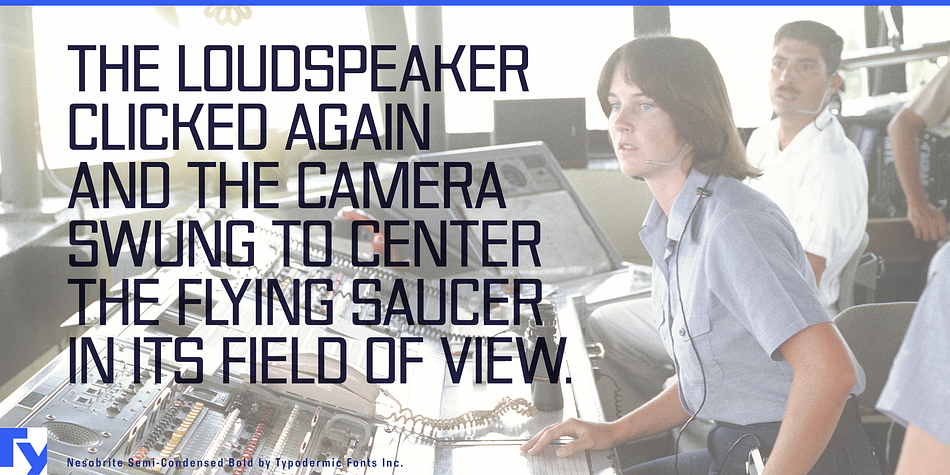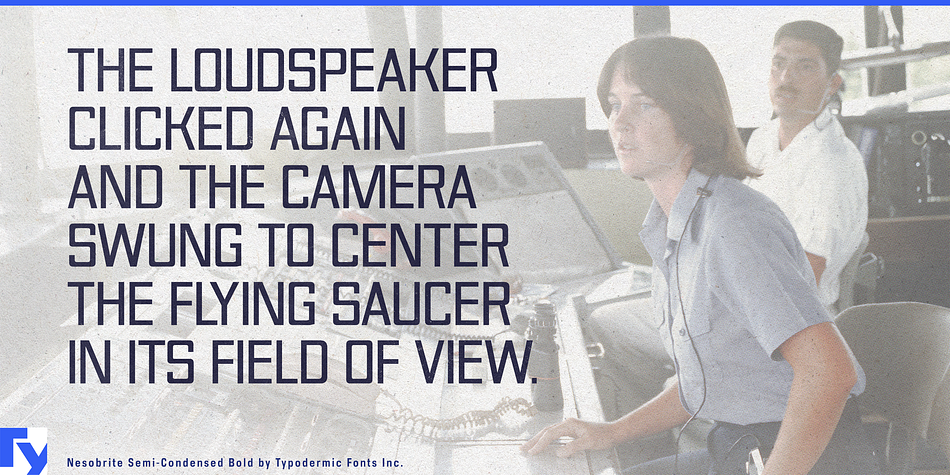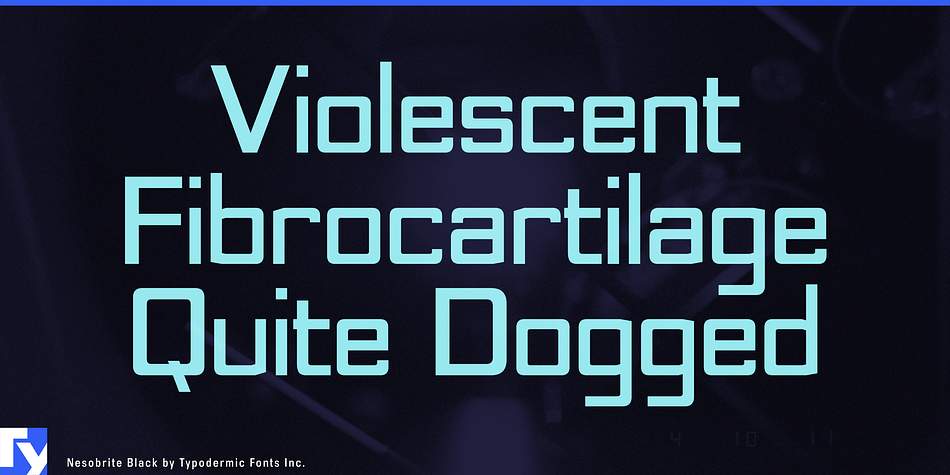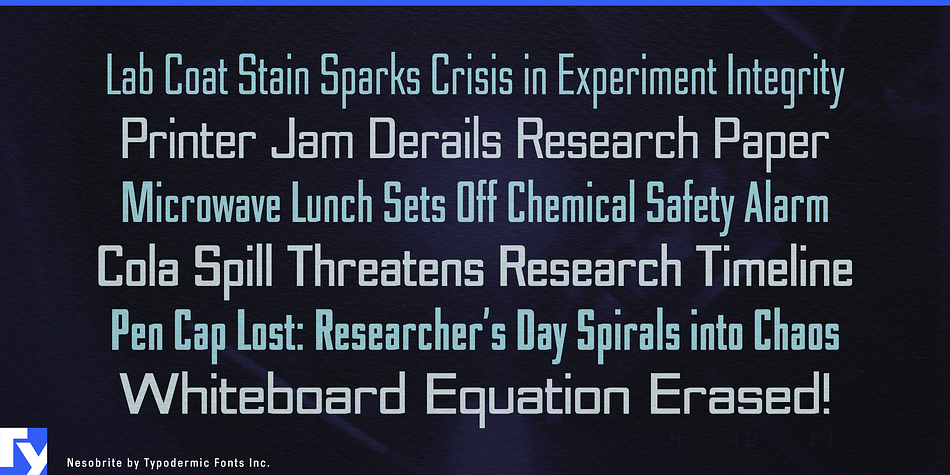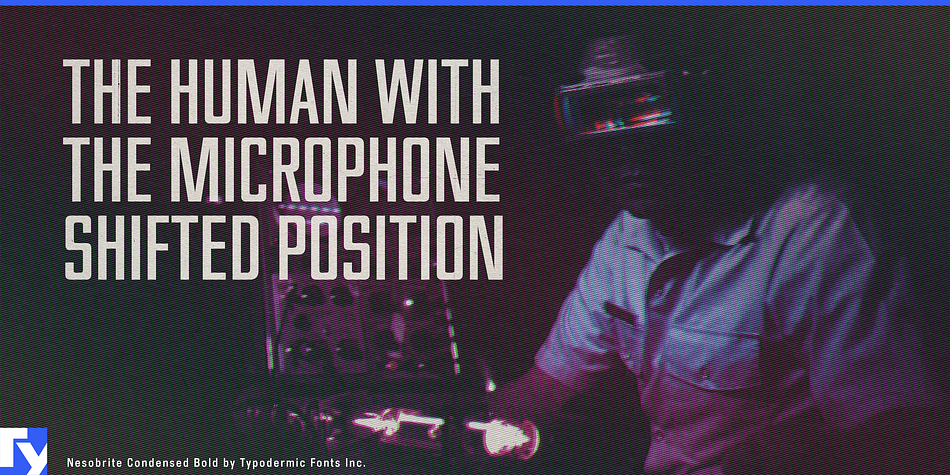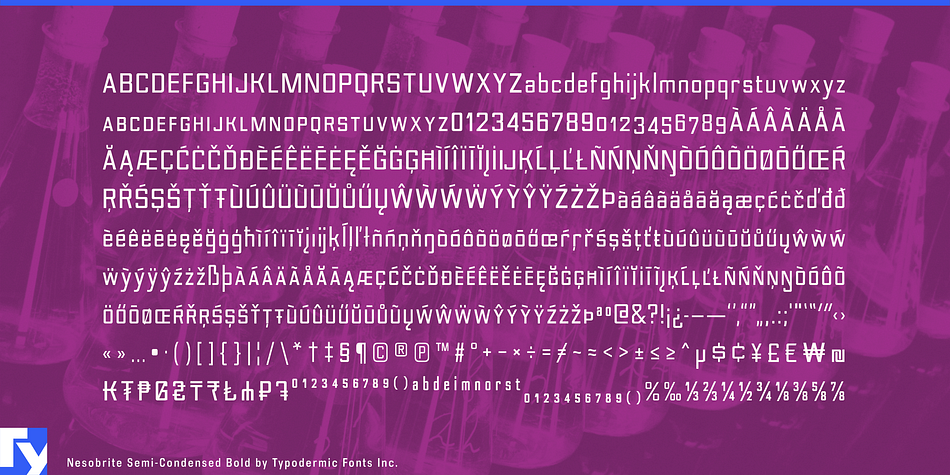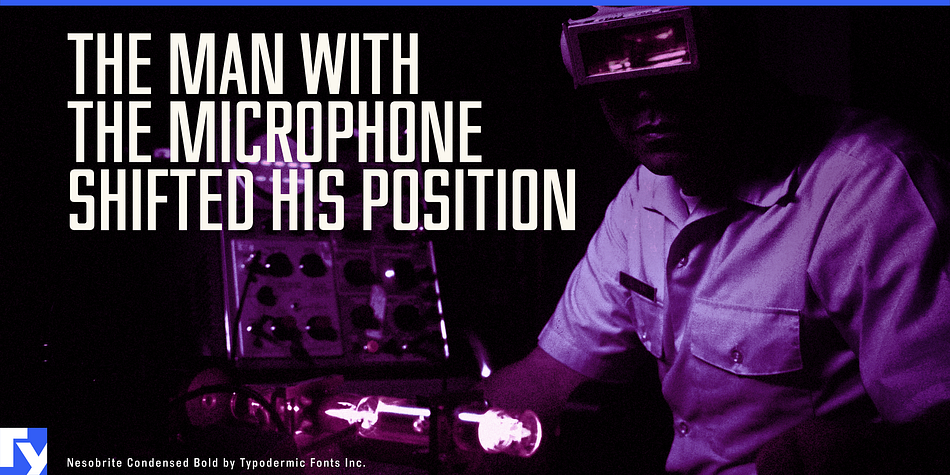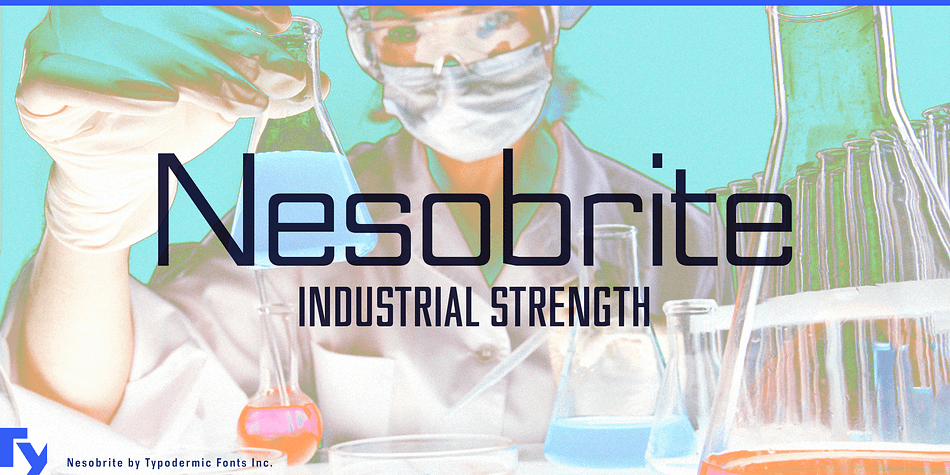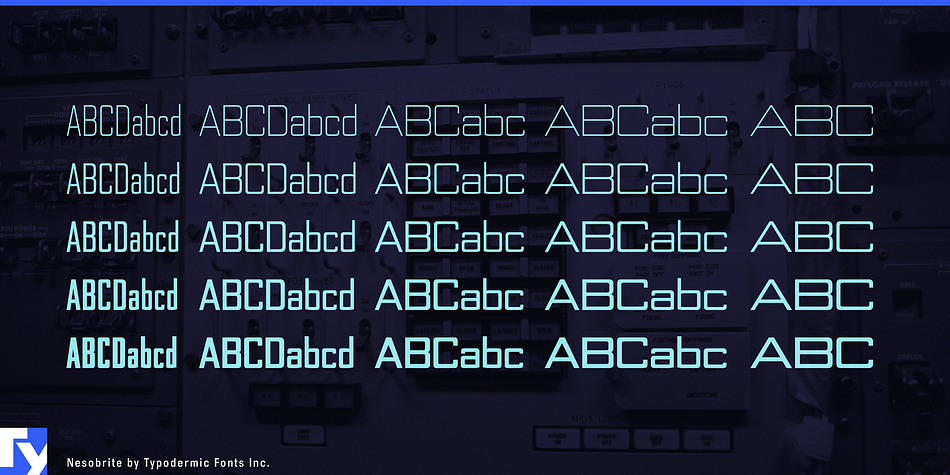
Nesobrite is a display sans font family. This typeface has twenty-five styles and was published by Typodermic Fonts Inc.
Nesobrite is a mechanical, linear typeface consisting of 25 styles: 5 weights and 5 widths. Clean, neutral and stark, Nesobrite was inspired by classic square-sans fonts such as Bank Gothic and Microgramma.